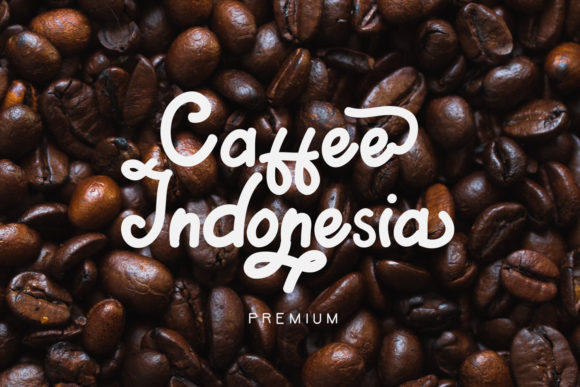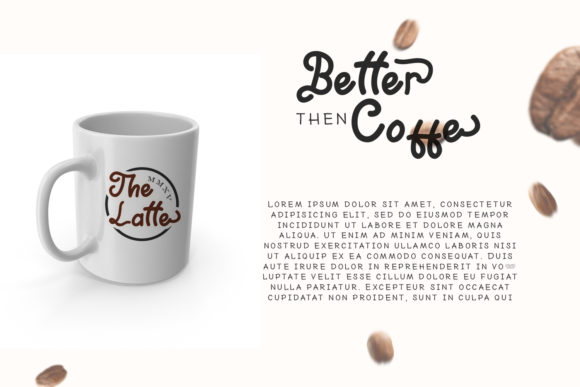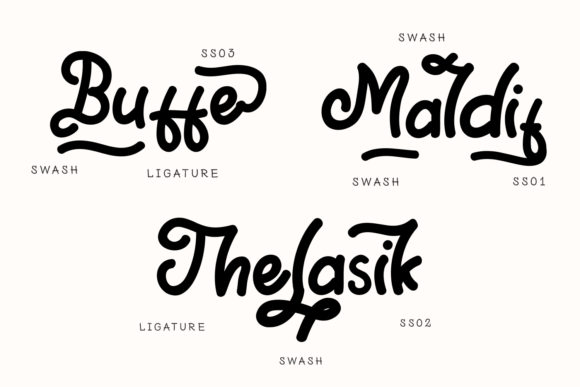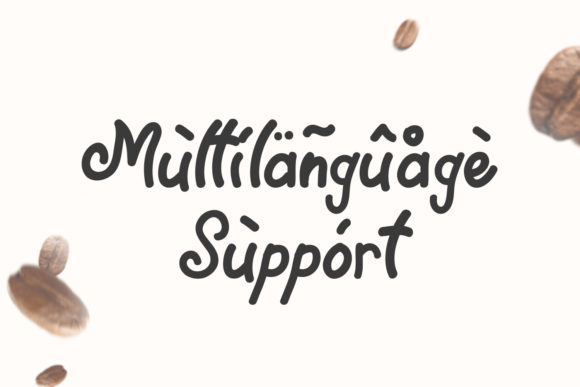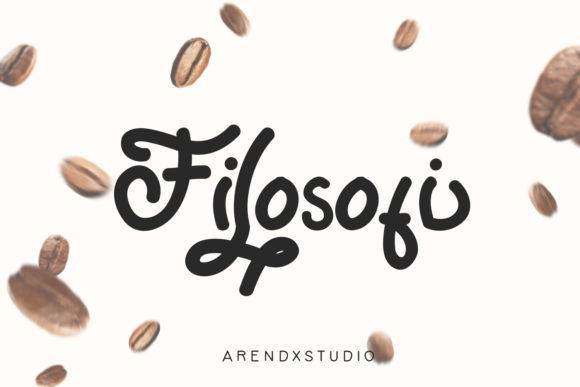
Filosofi Font: Adding a Touch of Whimsy to Your Creative Projects
In the world of typography, fonts play a crucial role in conveying the tone and personality of a brand or design. Among the numerous font styles available, handwritten fonts have gained immense popularity for their unique and personal touch. One such font that has captured the hearts of designers and crafters alike is the Filosofi Font. This charming handwritten font is designed to add an authentic spark to any creative project, making it a must-have for those seeking to infuse their work with a dash of whimsy.
What is Filosofi Font?
Filosofi Font is a light and charming handwritten font that boasts a distinctive, cursive style. Its elegant and fluid lines make it perfect for a wide range of applications, from branding and advertising to packaging and digital media. The font’s gentle, airy feel evokes a sense of playfulness and sophistication, making it an excellent choice for designers looking to create a unique visual identity.
Key Features of Filosofi Font
- Handwritten style: Filosofi Font features a beautiful, handwritten style that adds a personal touch to any design.
- Light and airy feel: The font’s light and airy feel makes it perfect for creating a sense of elegance and sophistication.
- Charming and whimsical: Filosofi Font’s charming and whimsical design makes it ideal for adding a touch of personality to any creative project.
- Highly versatile: The font is suitable for a wide range of applications, including branding, advertising, packaging, and digital media.
Why Choose Filosofi Font?
With so many fonts available, why should you choose Filosofi Font for your creative projects? Here are a few compelling reasons:
- Uniqueness: Filosofi Font’s distinctive, handwritten style sets it apart from more traditional fonts, making it an excellent choice for designers looking to create a unique visual identity.
- Emotional connection: The font’s charming and whimsical design helps to create an emotional connection with your audience, making your design more relatable and engaging.
- Flexibility: Filosofi Font is highly versatile, making it suitable for a wide range of applications and design styles.
Using Filosofi Font in Your Designs
So, how can you use Filosofi Font to add an authentic spark to your creative projects? Here are a few ideas to get you started:
- Branding and logos: Use Filosofi Font to create a unique and memorable logo that reflects your brand’s personality.
- Digital media: Add a touch of whimsy to your social media graphics, blog posts, and website designs with Filosofi Font.
- Packaging design: Use the font to create eye-catching packaging designs that stand out on store shelves.
- Stationery and cards: Add a personal touch to your stationery, greeting cards, and invitations with Filosofi Font.
Tips for Pairing Filosofi Font with Other Fonts
To get the most out of Filosofi Font, it’s essential to pair it with other fonts that complement its style. Here are a few tips to help you create harmonious font combinations:
- Pair with sans-serif fonts: Pair Filosofi Font with clean, sans-serif fonts like Arial, Helvetica, or Open Sans to create a striking contrast.
- Combine with script fonts: Combine Filosofi Font with other script fonts to create a beautiful, handwritten look.
- Use with bold fonts: Pair Filosofi Font with bold, serif fonts to create a visually appealing contrast.
In conclusion, Filosofi Font is a charming and versatile handwritten font that can add an authentic spark to any creative project. Its unique, cursive style and light, airy feel make it perfect for a wide range of applications, from branding and advertising to packaging and digital media. With its emotional connection, flexibility, and uniqueness, Filosofi Font is an excellent choice for designers and crafters looking to infuse their work with a dash of whimsy. So why not give Filosofi Font a try and see how it can elevate your designs to the next level?